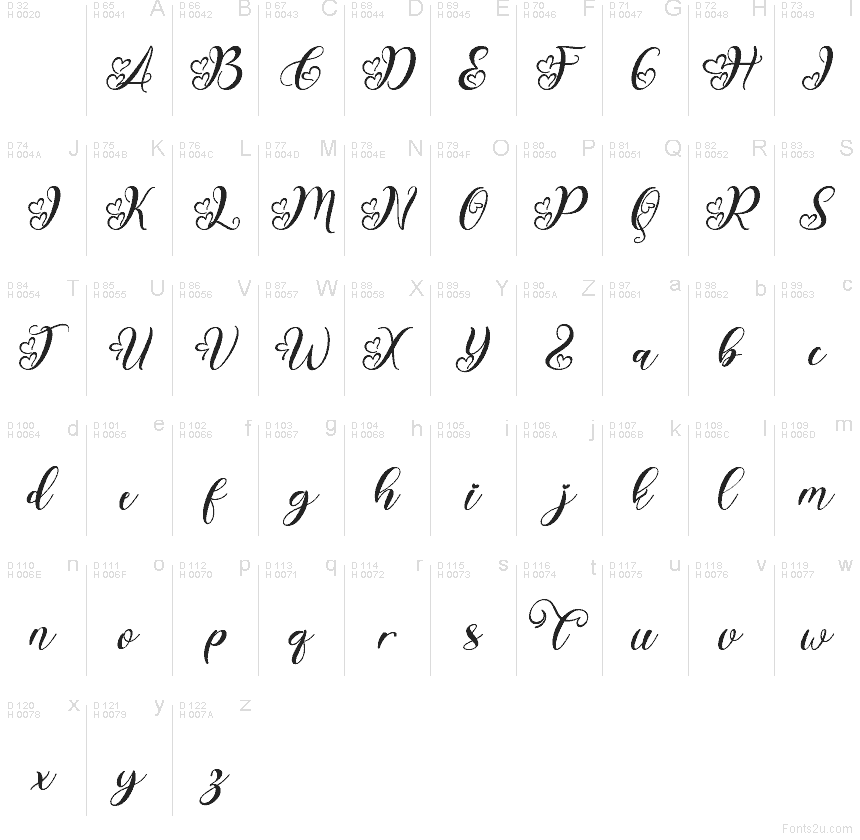
Valentine Bellia Demo Italic
Valentine Bellia Italic font by Yoga Letter is a free romantic calligraphy typeface with a soft, handwritten flow and elegant, inky strokes. Tall, sweeping letters curl into generous loops, while playful heart-shaped details slip into the rhythm without feeling cheesy. The Valentine Bellia family brings a sense of handwritten sincerity, as if it were brushed directly onto the page with a smooth, slightly glossy pen.
Using Valentine Bellia Italic, love notes and Valentine cards feel instantly more personal, and it shines on wedding invitations, save‑the‑dates, boutique logos, sweet packaging, and romantic social media quotes. The spacing is airy enough to stay readable while still giving room for all those flourishes to breathe. For balance, pair this free font with a clean sans serif for small text and let Valentine Bellia handle names, headings, and short phrases at larger sizes.